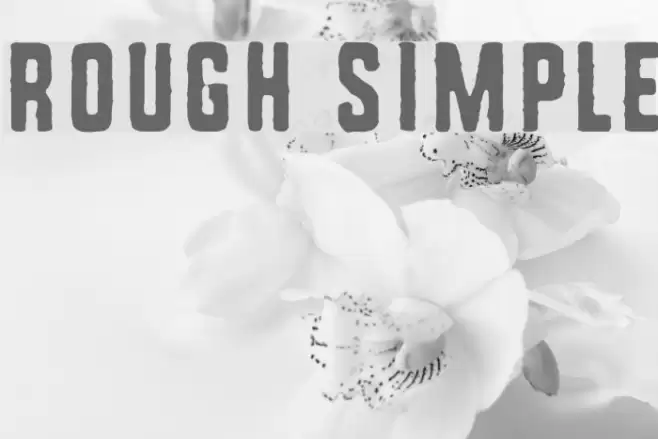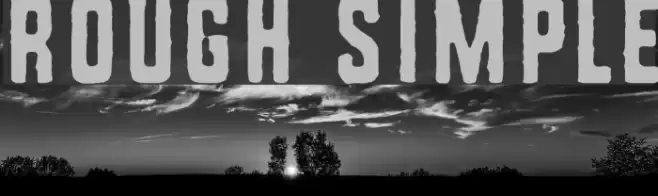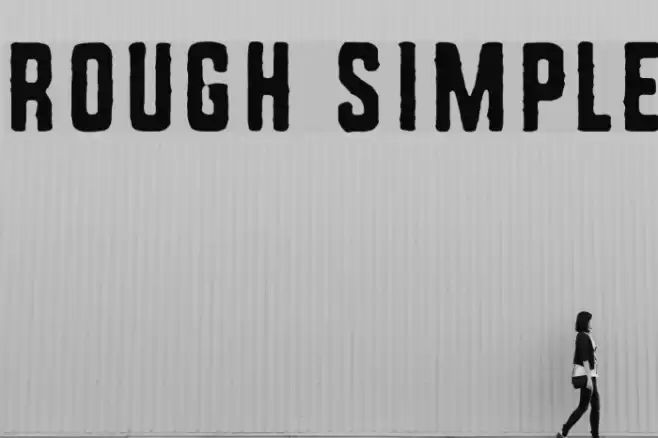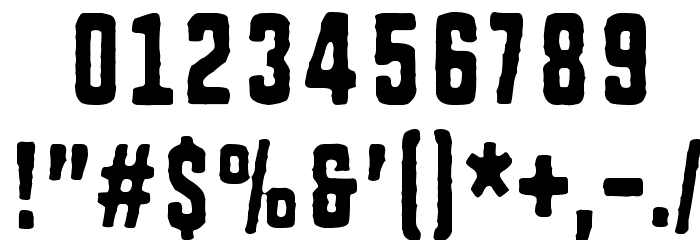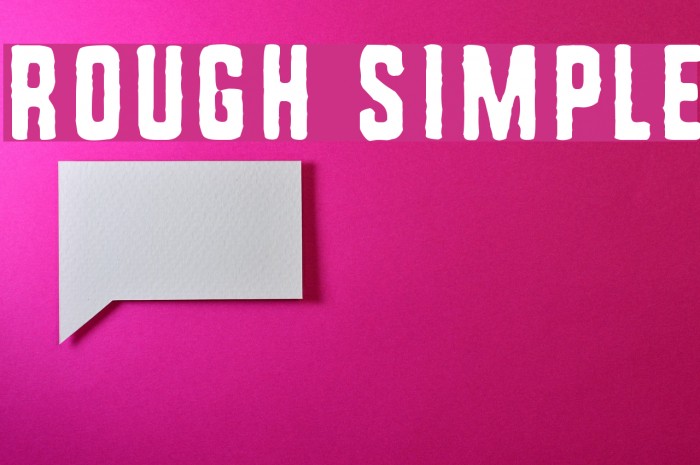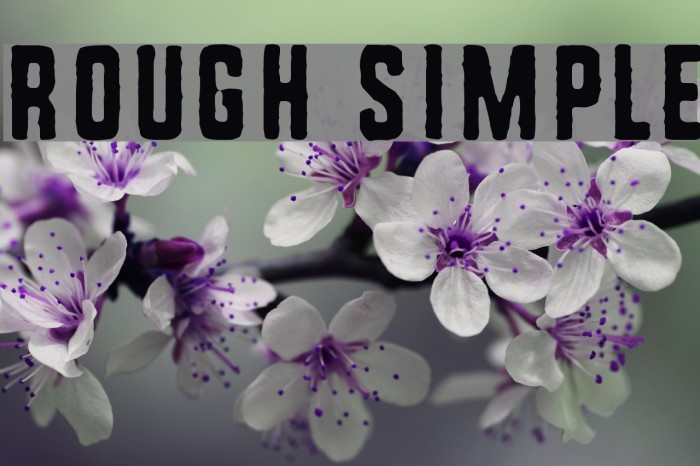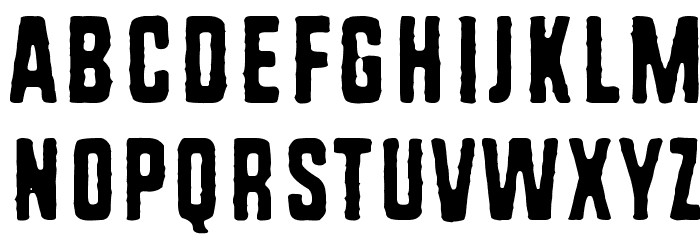
Rough Simple Font
Rough Simple Description
This font features a bold and rugged style with a distressed texture that gives it a vintage and handcrafted appearance. The uppercase and lowercase letters maintain a consistent width, creating a uniform look. The numbers and special characters are designed with the same rough edges, enhancing the overall cohesive aesthetic. The font's boldness and unique texture make it stand out, ideal for projects that require a strong and impactful visual presence. Its design is reminiscent of old printing techniques, adding a nostalgic touch to any design.
A bold, distressed font with a vintage, handcrafted look from Distorted Eroded fonts.
- Proposed Projects: Ideal for posters, logos, branding, and packaging that require a vintage or rustic feel.
- Overall Style: Vintage